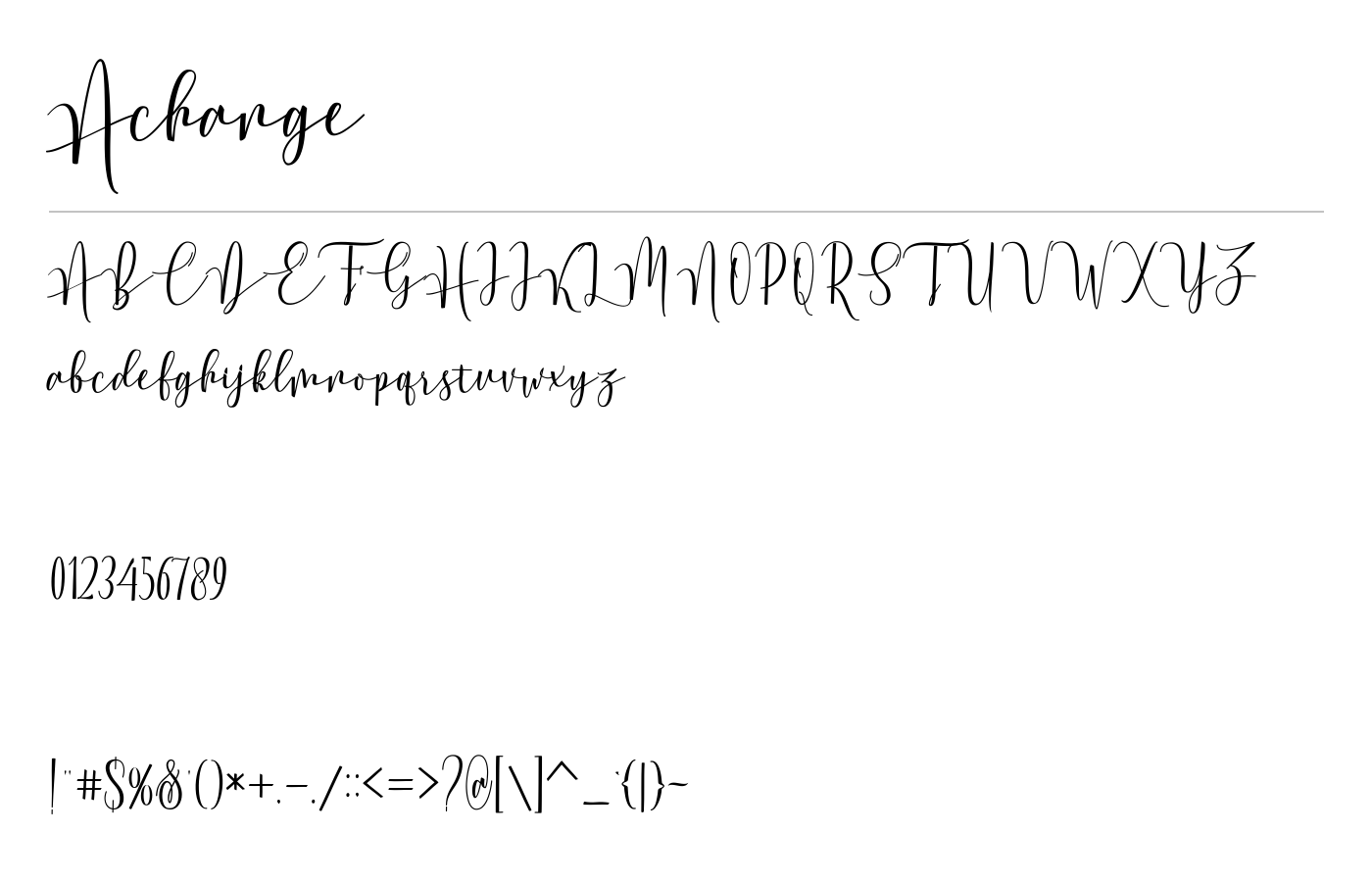
Achange Font is an elegant, handwritten script with tall, slender letterforms and delicate strokes that create a graceful, airy appearance. Its flowing, slightly whimsical style makes it perfect for sophisticated branding, invitations, and creative designs seeking a personal yet refined touch. This font combines charm and readability, lending itself well to logos, fashion packaging, and stylish editorial headlines.
Achange Font